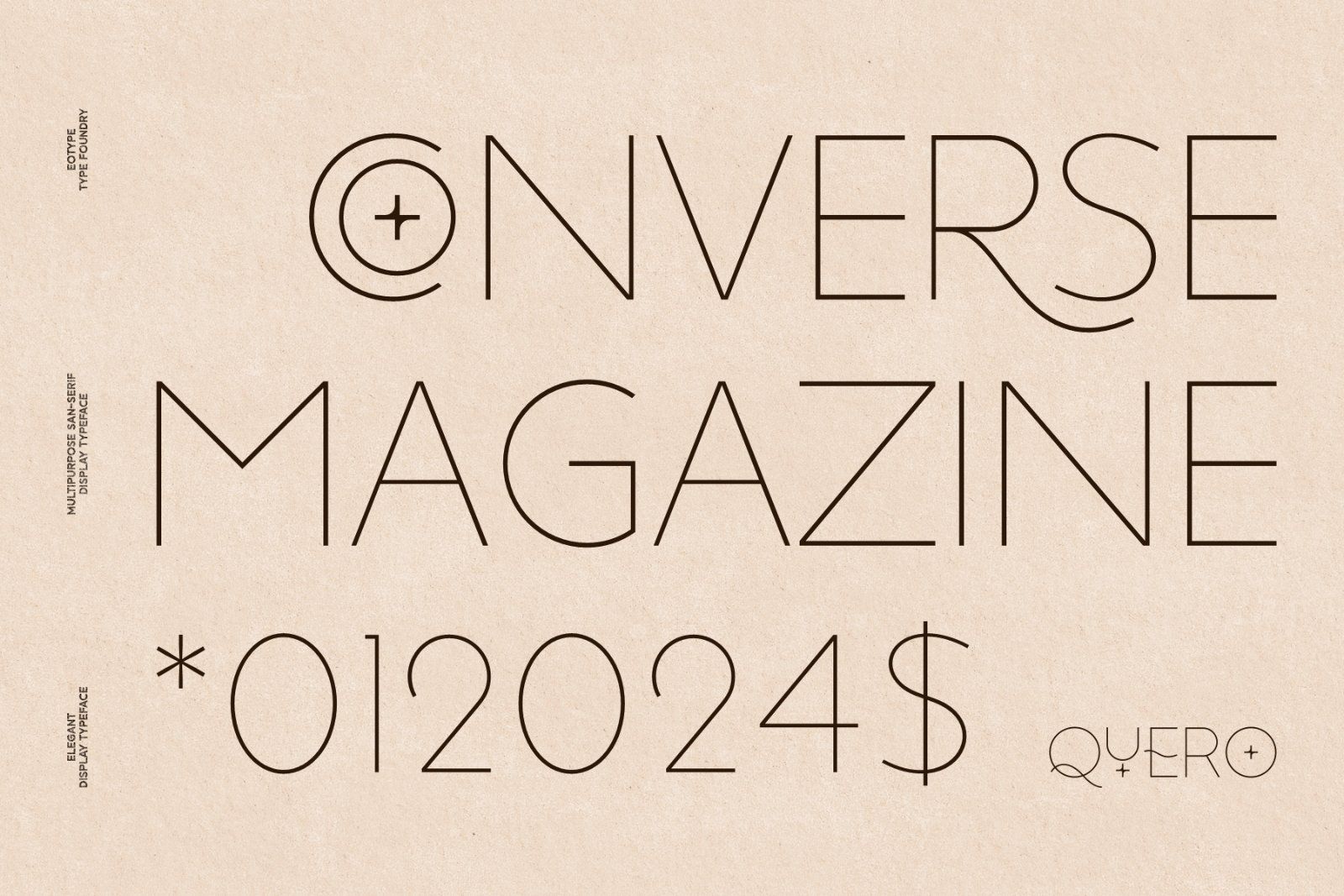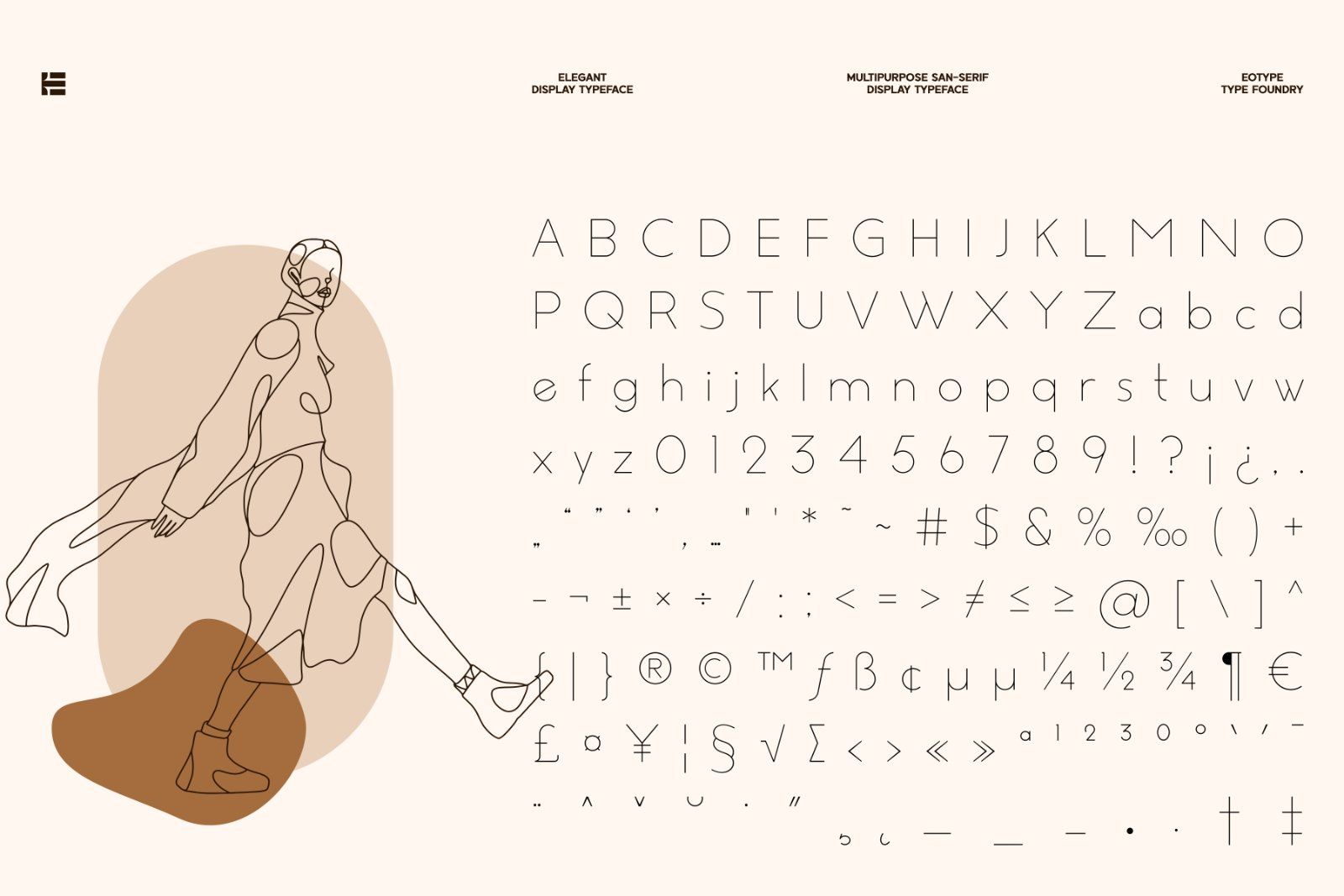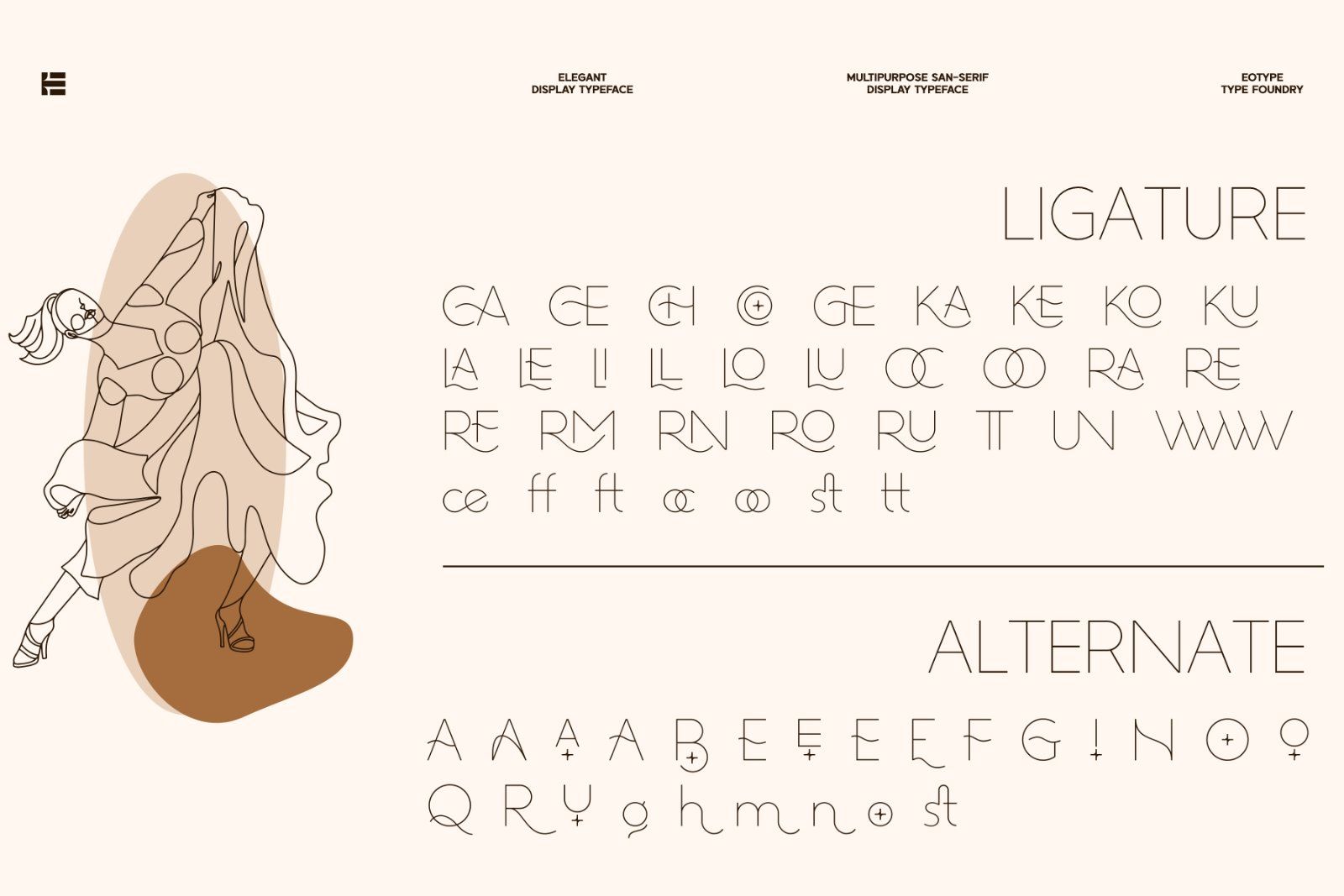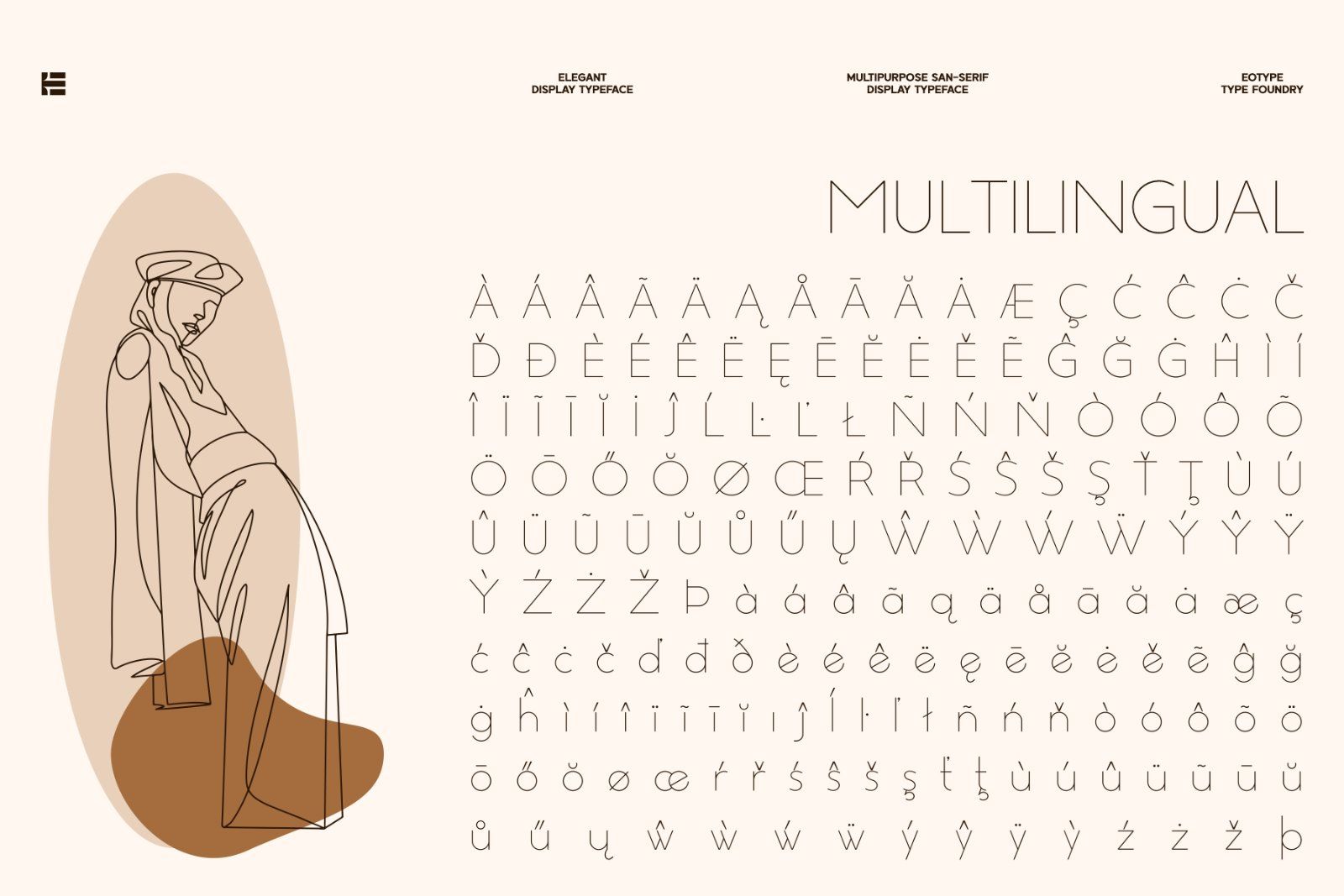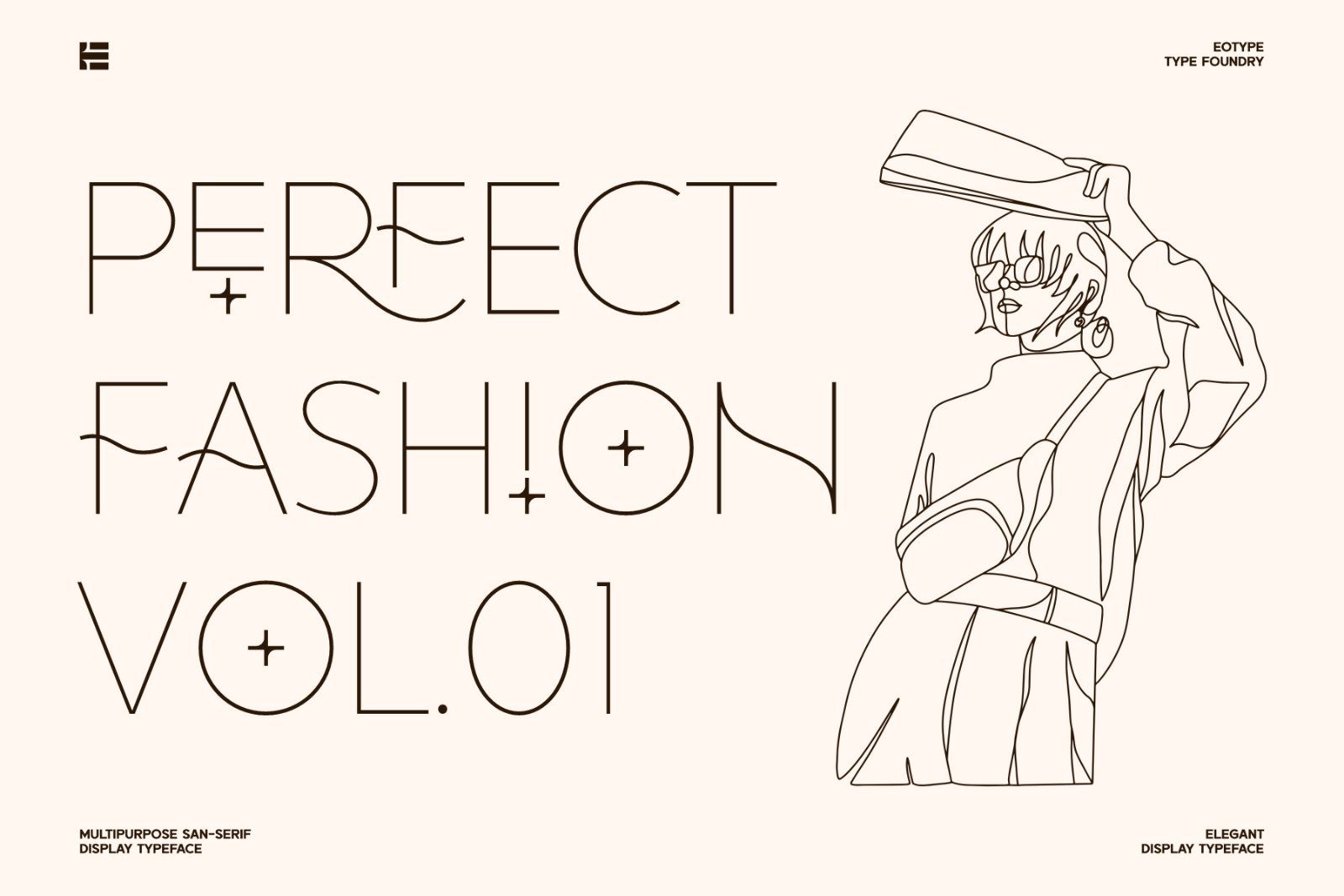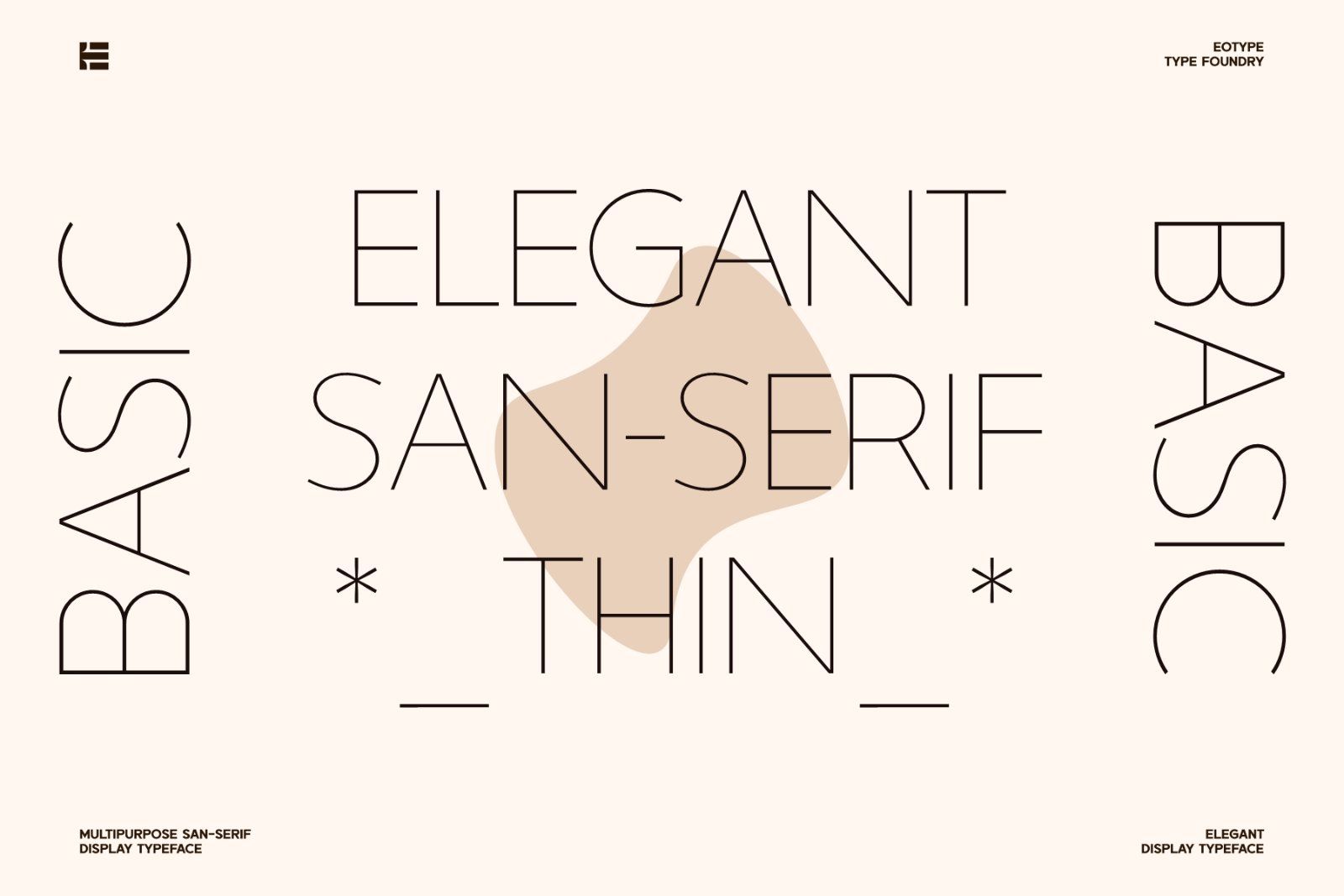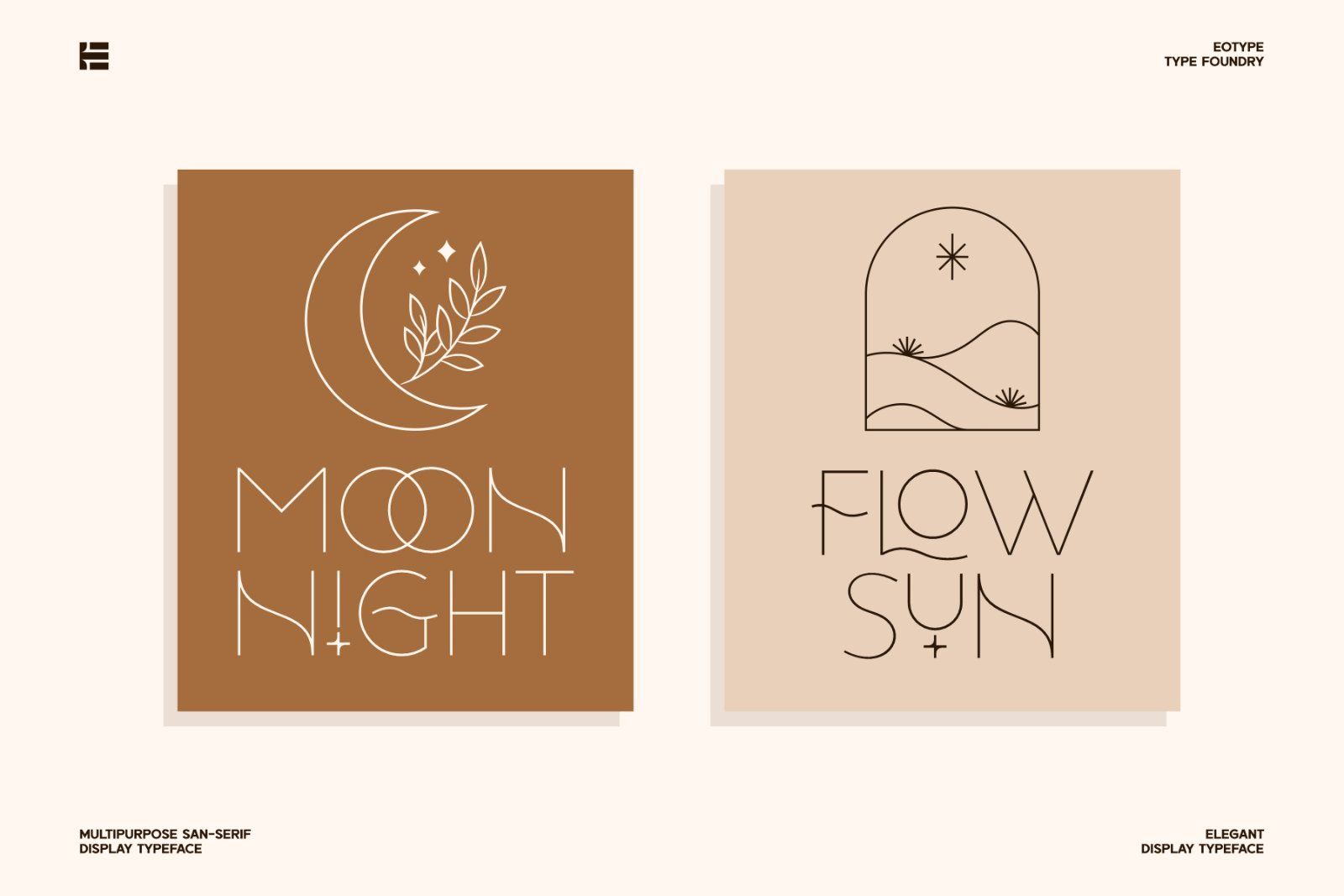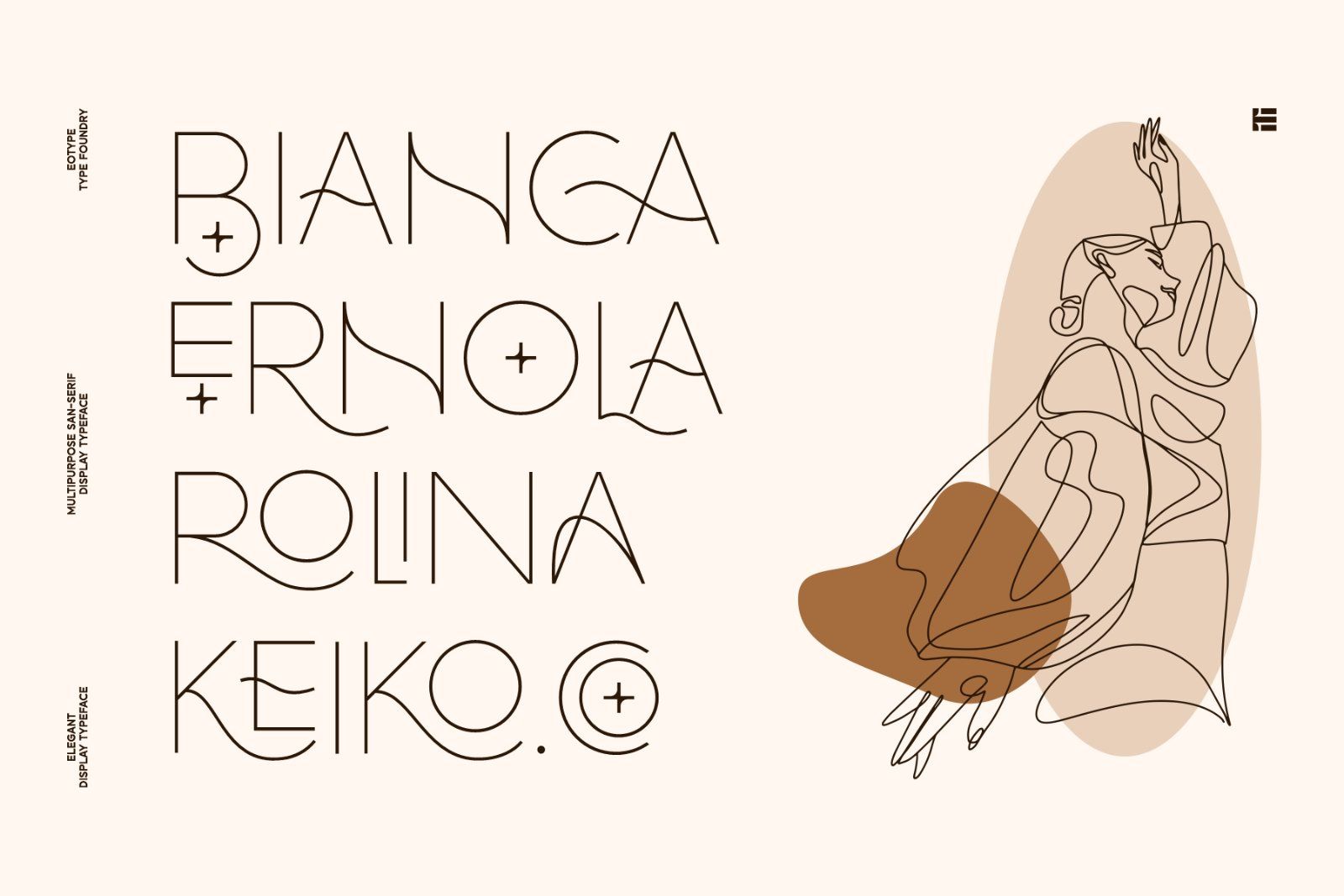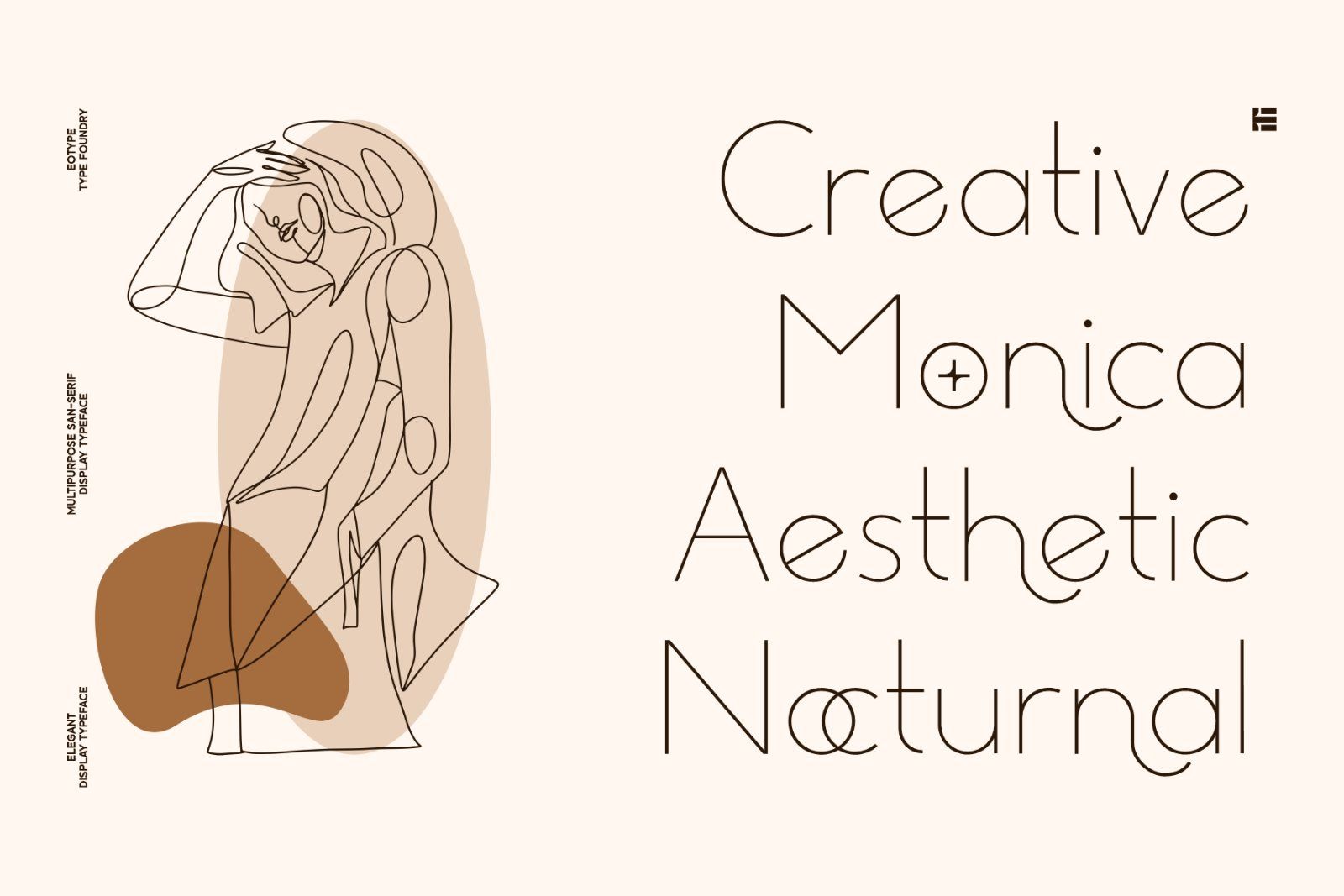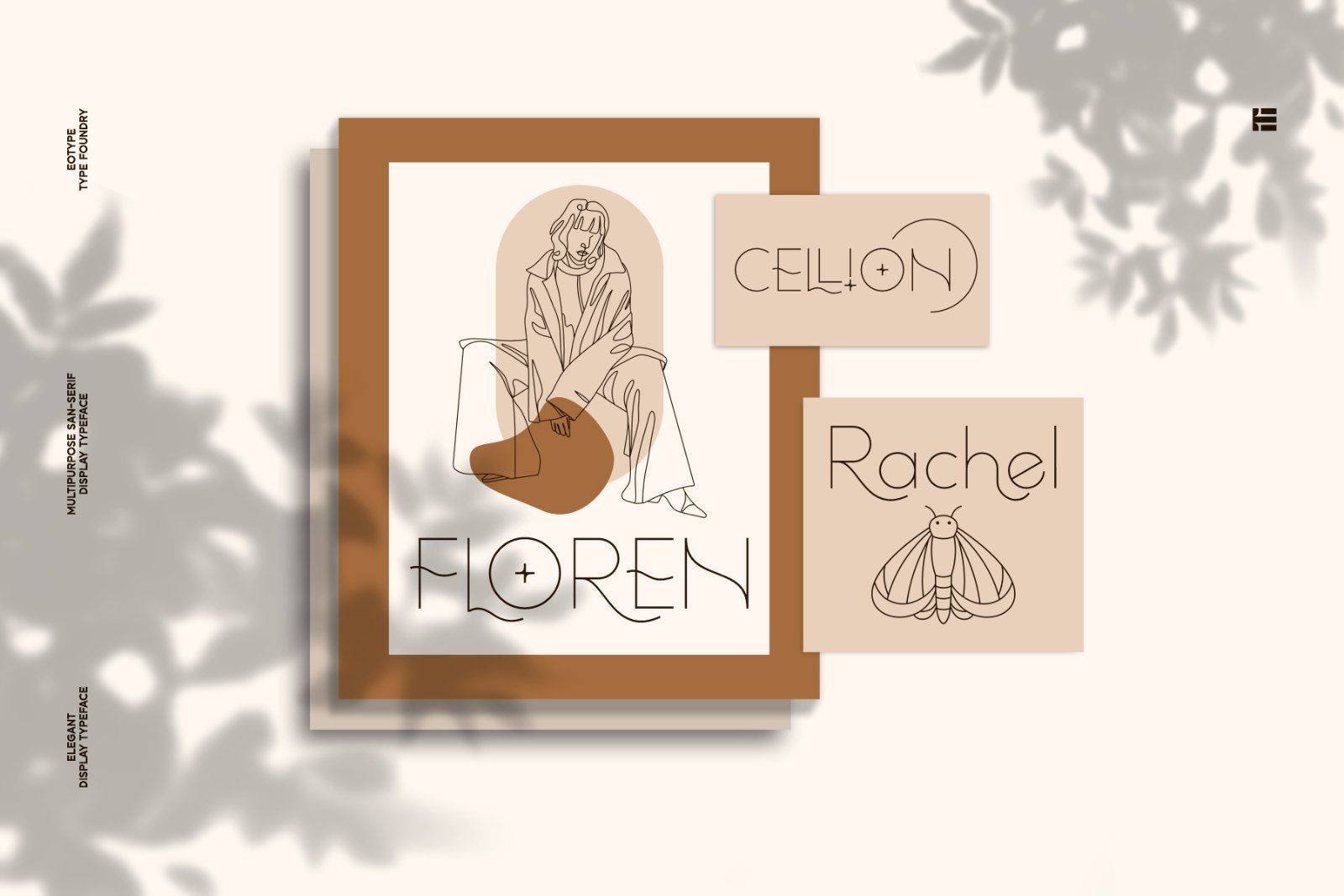
Quero is a decorative sans serif font that has thin,elegance and versatility. This unique font is perfect for creating beautiful logotypes, stunning magazine designs and more. This font can be your solution in completing projects that are equipped with various alternate and ligature collections.